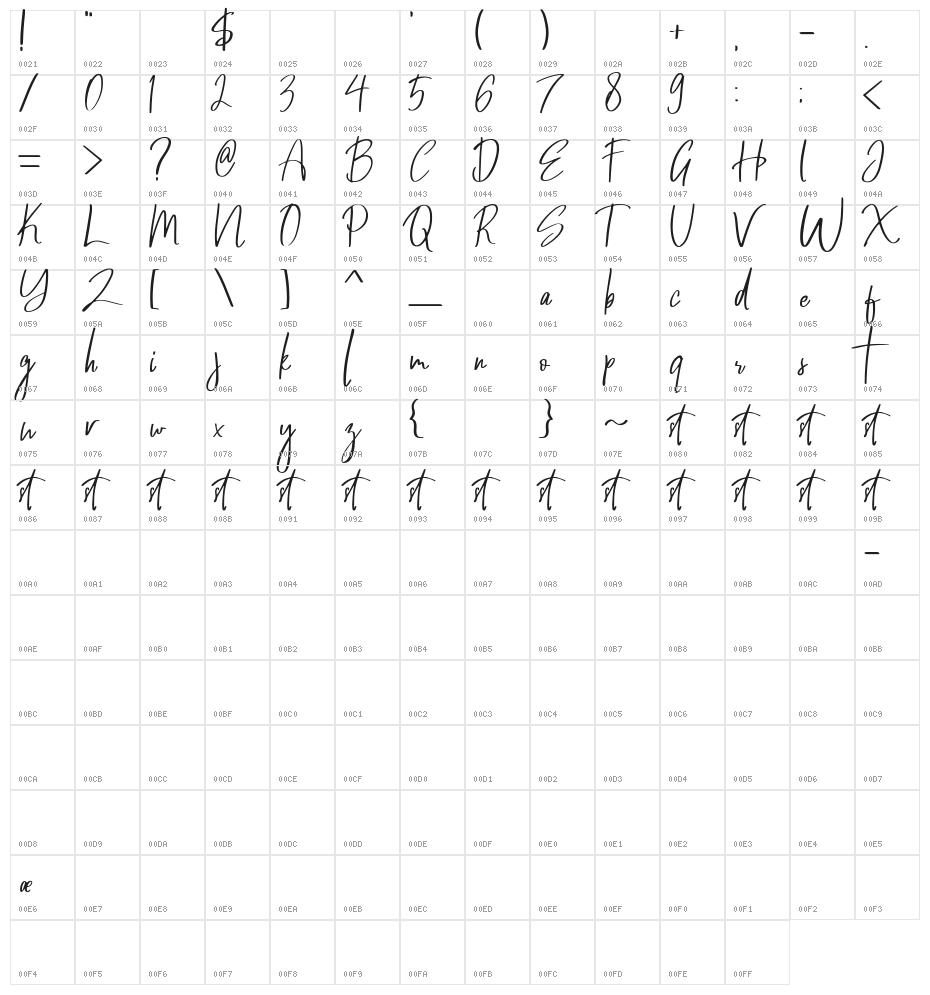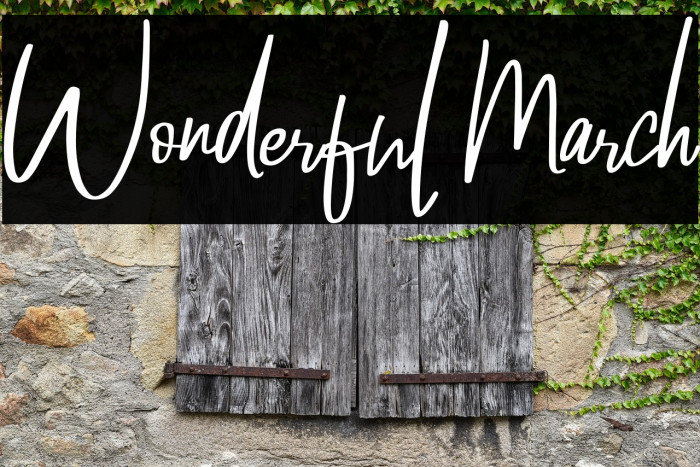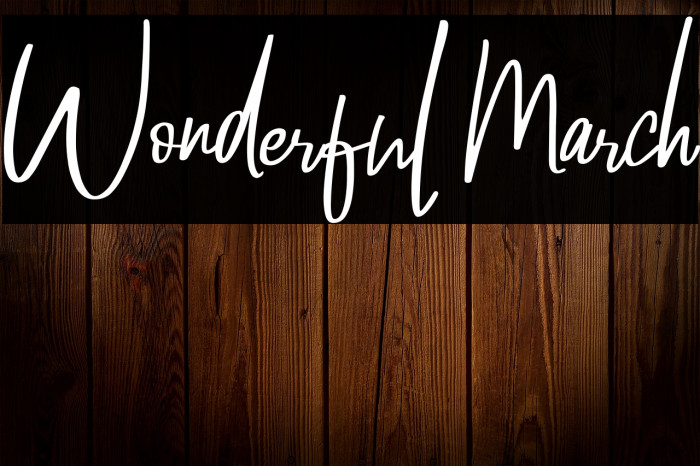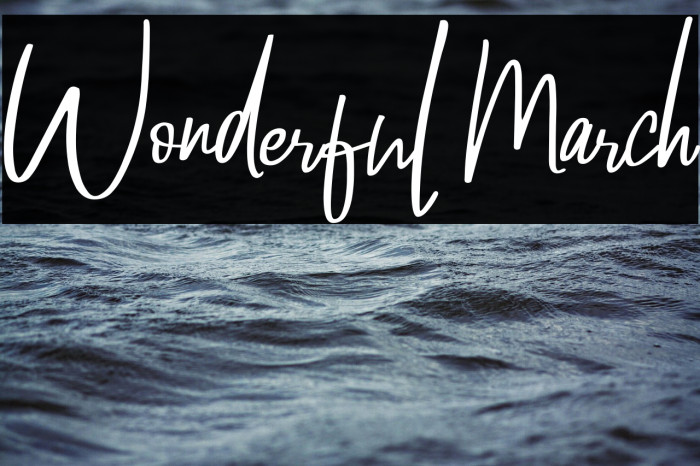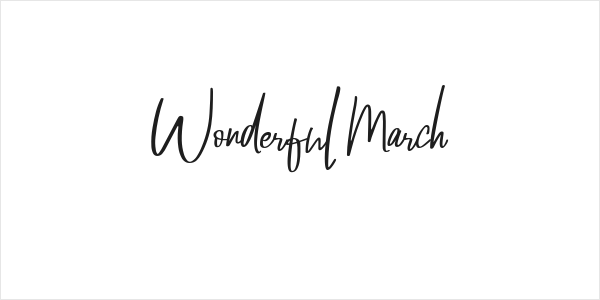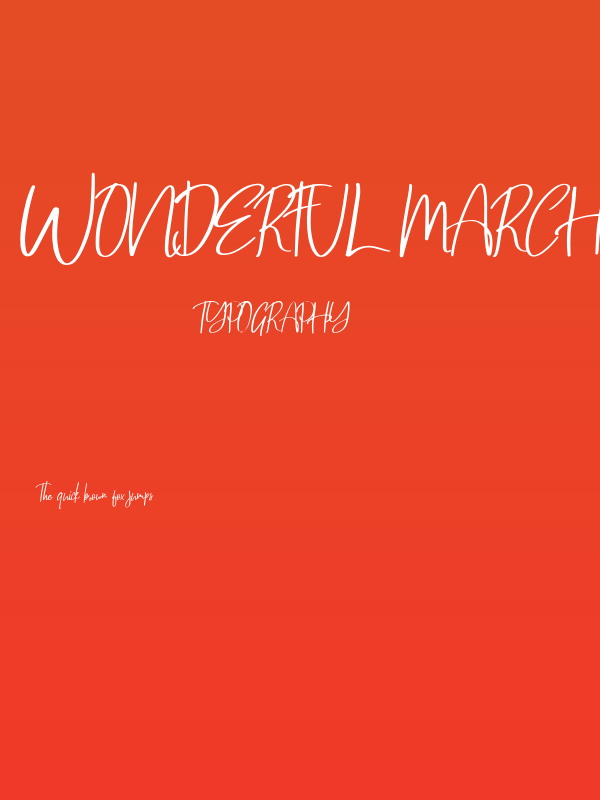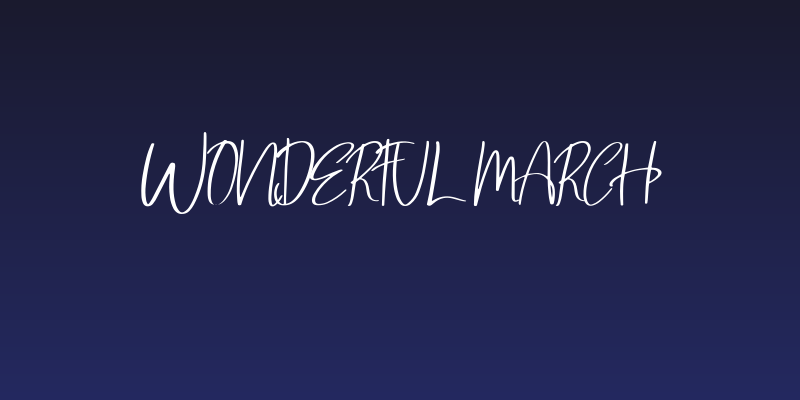
Wonderful March Font
Wonderful March Description
This font exudes a lively and dynamic handwritten style, characterized by its fluid and cursive letterforms. The strokes are smooth and continuous, giving it an elegant yet casual appearance. The uppercase and lowercase letters maintain a consistent flow, while the numbers and special characters integrate seamlessly with the overall design. The font's playful nature makes it suitable for creative projects that require a personal touch.
| Proposed Projects | Ideal for greeting cards, invitations, personal branding, and creative projects. |